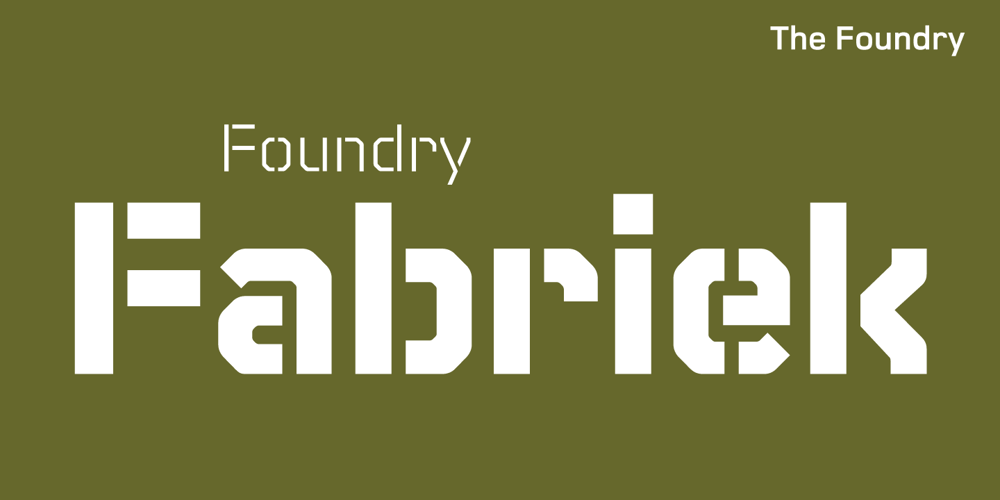
Foundry Fabriek
Foundry Fabriek font
Foundry Fabriek Font Family was designed by published by The Foundry. Foundry Fabriek contains 5 styles and family package options. Foundry Fabriek was inspired by the concepts behind industrial fabrication, where and how parts of materials or structures are united. The systematic grid, formed by stencil shapes, is indicative of the work of Wim Crouwel, consultant on the development of this typeface. The compact character widths of Foundry Fabriek are consistent over the five weight progression, giving flexibility for a variety of applications. The characteristic letterforms have an extra dynamic in large scale, perhaps in cast concrete or laser cut metal, to form integrated components in architectural or signage projects.